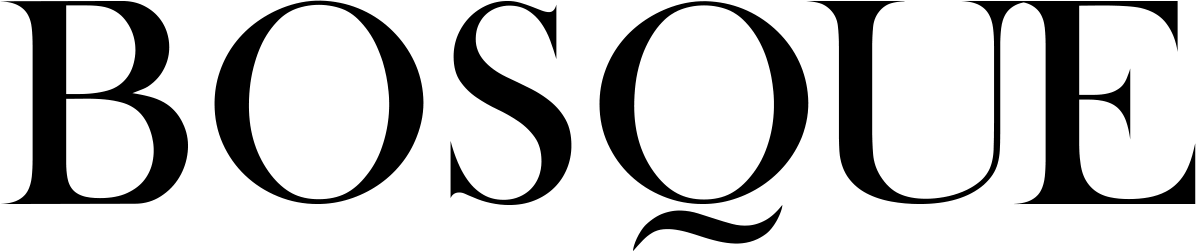
Bosque Font
Bosque gives you the ability to create a beautiful, modern, and fashionable typography with its trendy bold characters. This serif font is trustworthy, your design will look professional, especially with the swash tails,…
Bosque gives you the ability to create a beautiful, modern, and fashionable typography with its trendy bold characters. This serif font is trustworthy, your design will look professional, especially with the swash tails, and it will be at the center of attention.
You will be pleased to know that the glamorous letterforms included are mixed case alphabets, numbers, and punctuation. Bosque is convenient for fashion shows, magazines, branding, perfume, and wherever the loveable, dependable font is needed for your typography!